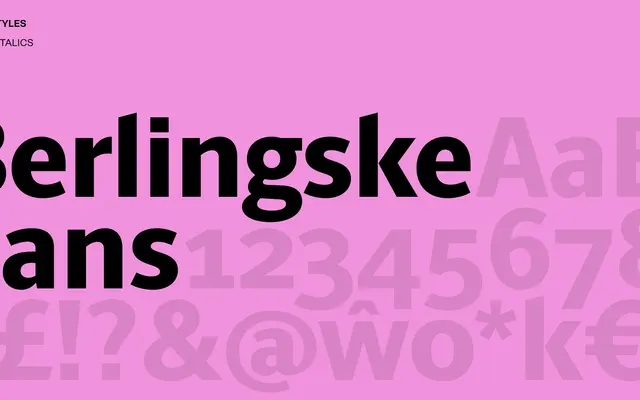
Berlingske Sans
A sans-serif component of the Berlingske type family, designed for editorial and newspaper use.
Part of the broader Berlingske type system developed for editorial environments, this sans-serif draws on humanist proportions suited to text-heavy layouts. The scraped page content offers minimal technical detail, but the family name ties it to Scandinavian newspaper typography. Likely intended to work in conjunction with a serif counterpart within the same system.
The name and context suggest a humanist sans-serif companion to the Berlingske type system, typical of Scandinavian editorial type design.